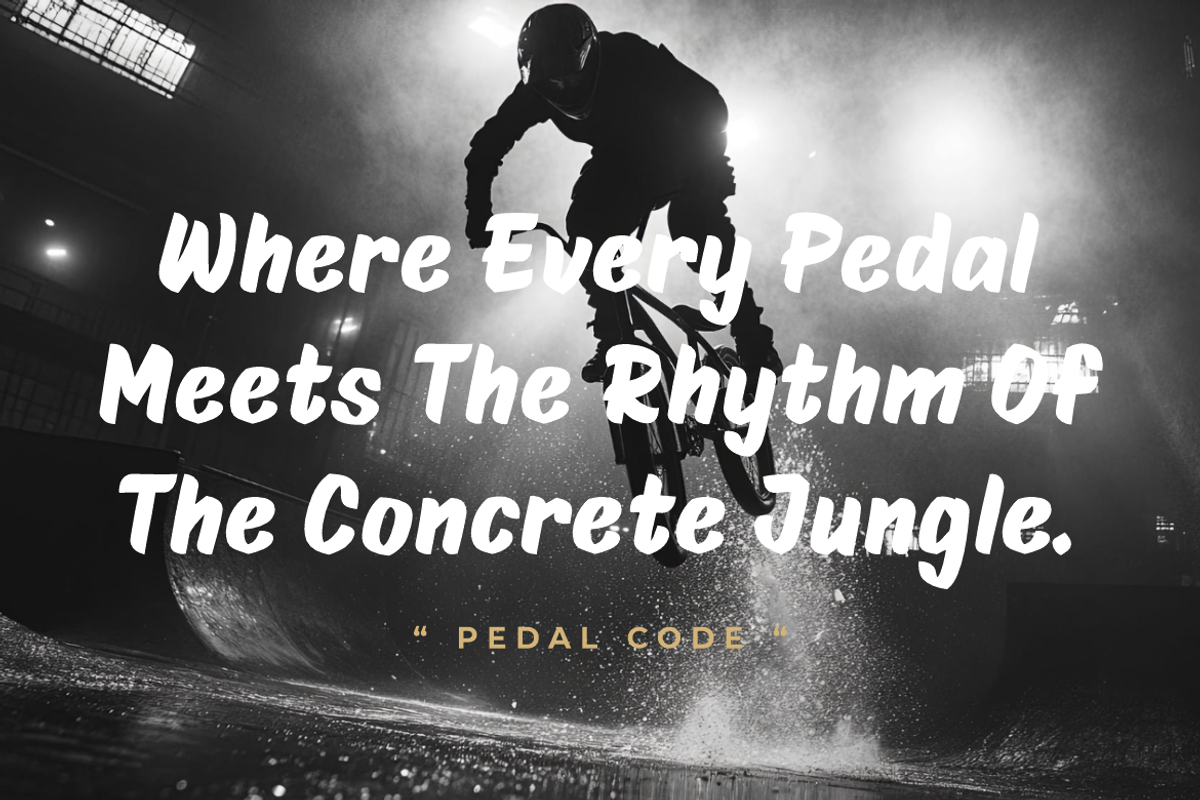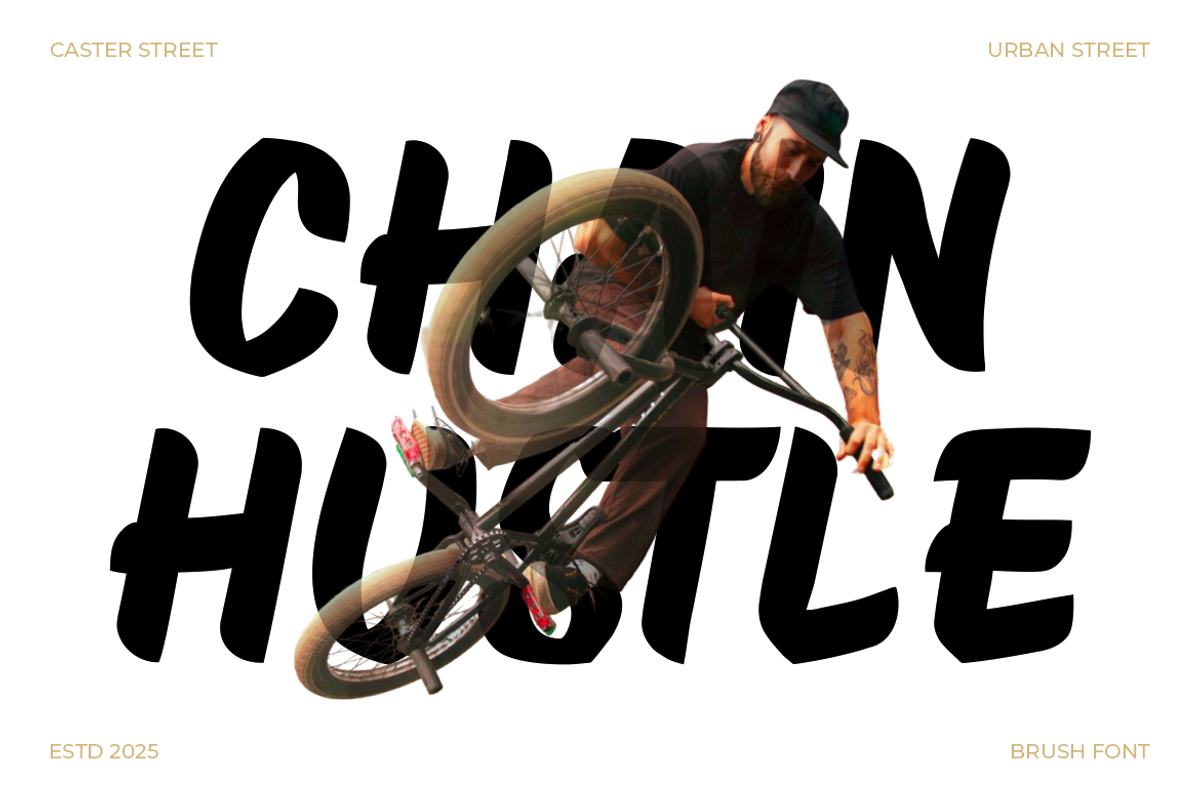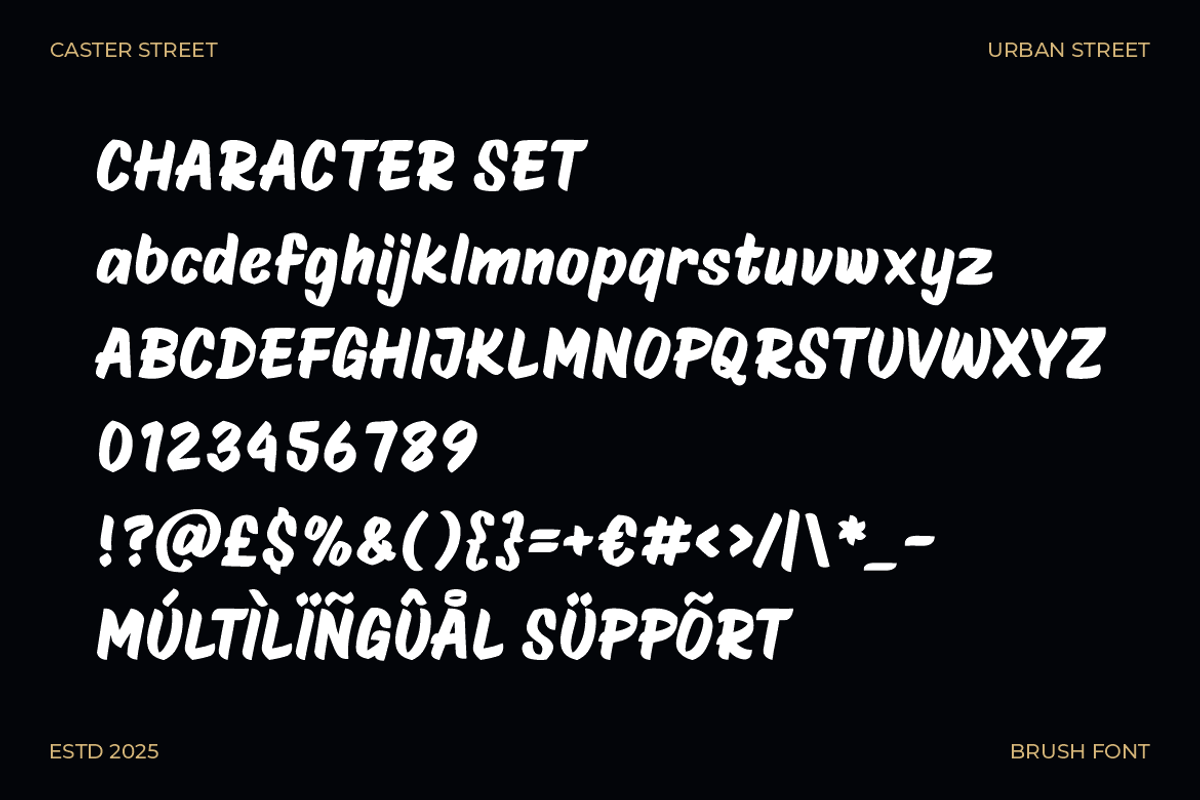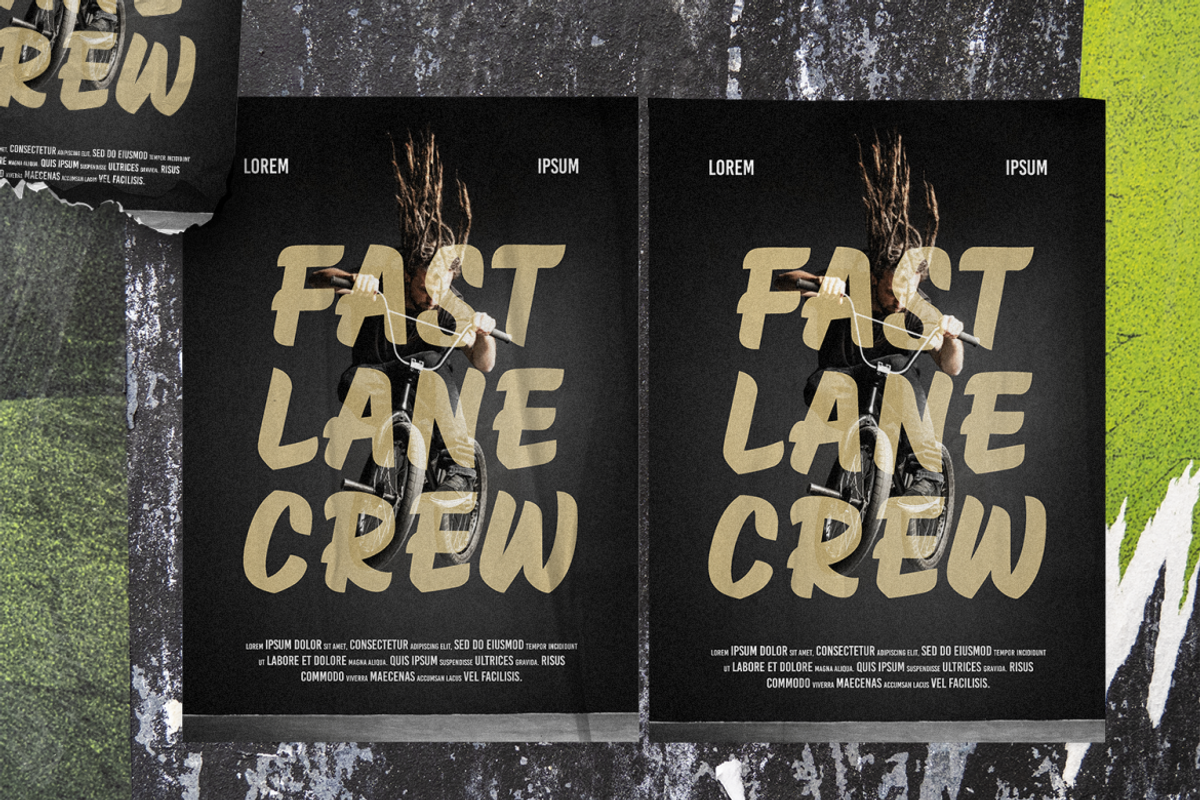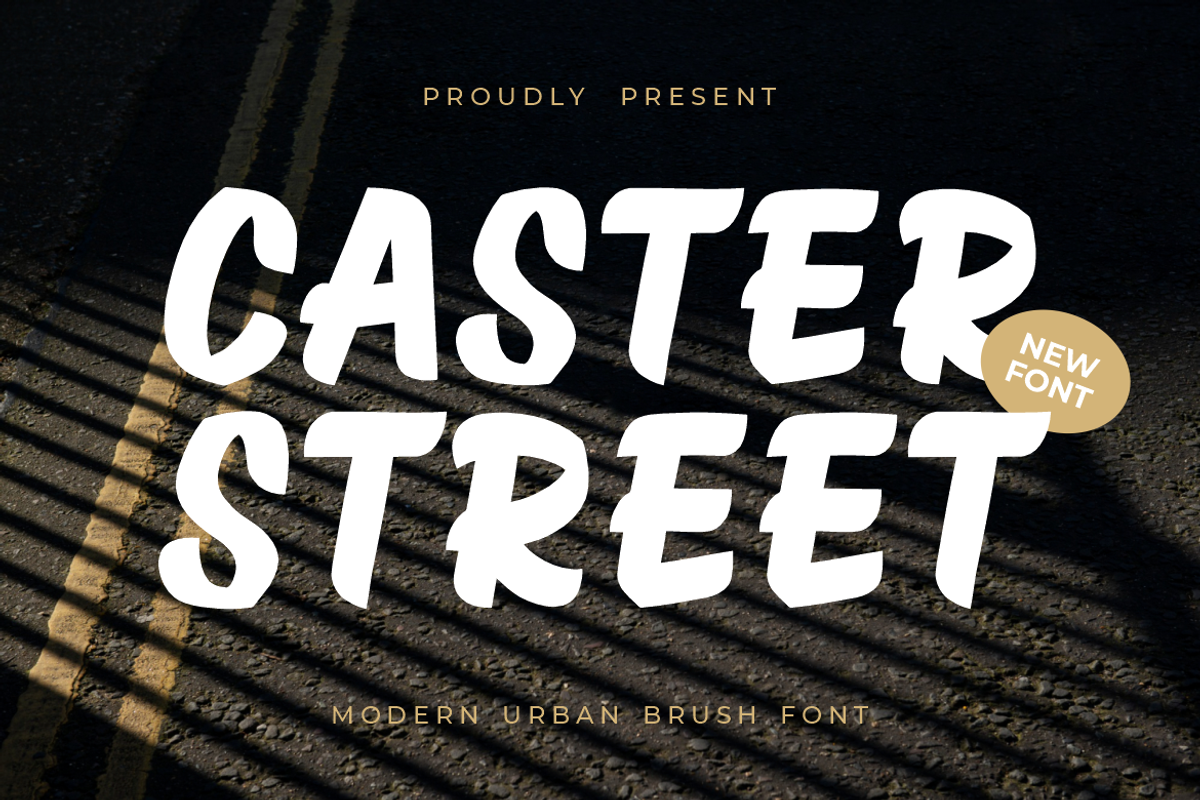
Caster Street Modern Brush Font
Caster Street Modern Brush Font is a bold typeface crafted with strong brush strokes that capture the raw energy of urban culture. The characters are slightly tall with wide proportions, giving them a confident and eye-catching presence. Each letter carries a natural hand-brushed texture that creates movement and rhythm, making the font feel alive and expressive. The rounded edges combined with uneven stroke weights enhance its casual authenticity, while the bold thickness ensures readability across multiple sizes. This font balances strength and playfulness, making it highly versatile for modern creative projects.
Caster Street Modern Brush Font is ideal for logos, posters, advertising campaigns, product packaging, magazine covers, and event promotions. Its urban aesthetic makes it especially fitting for streetwear branding, sports visuals, and social media graphics. The handwritten brush effect provides a sense of individuality and authenticity, helping designs stand out in competitive markets. Whether used in large display headlines or layered into dynamic compositions, this font delivers personality and energy. Designers who want to add bold creativity to their projects will find Caster Street Modern Brush Font to be a perfect choice for impactful and modern typography.